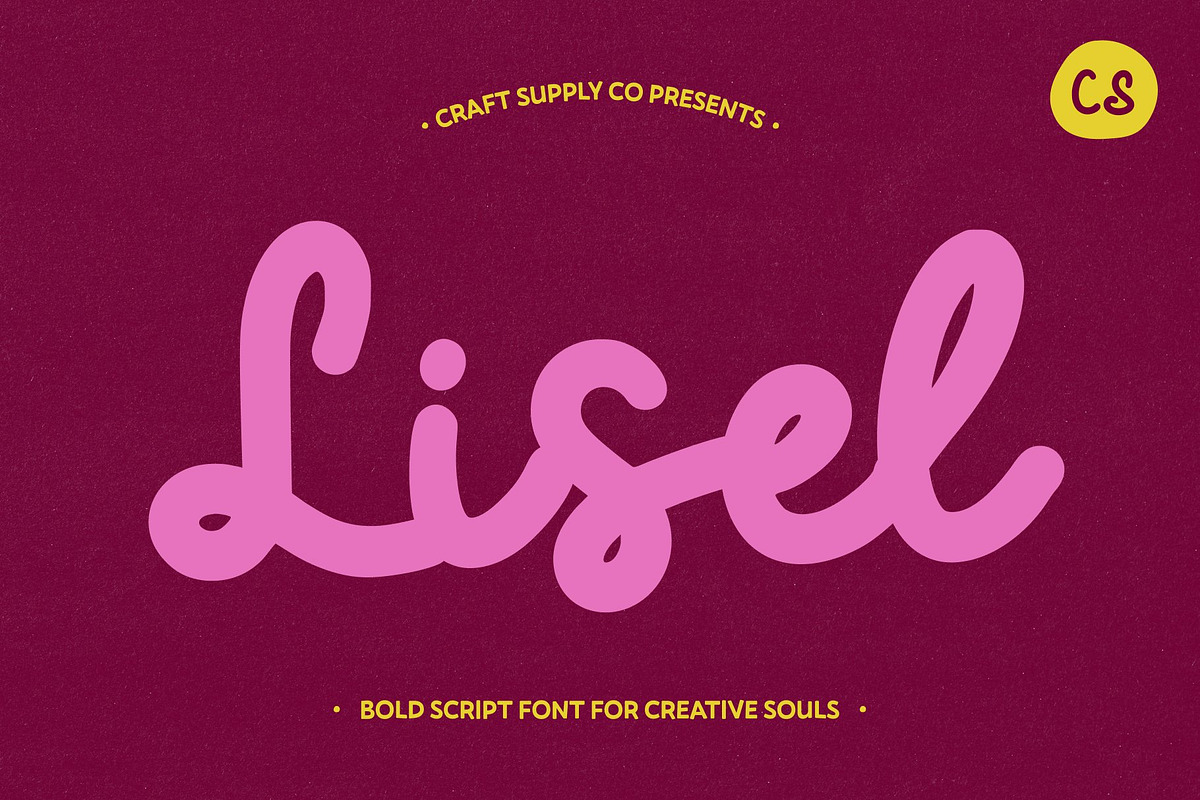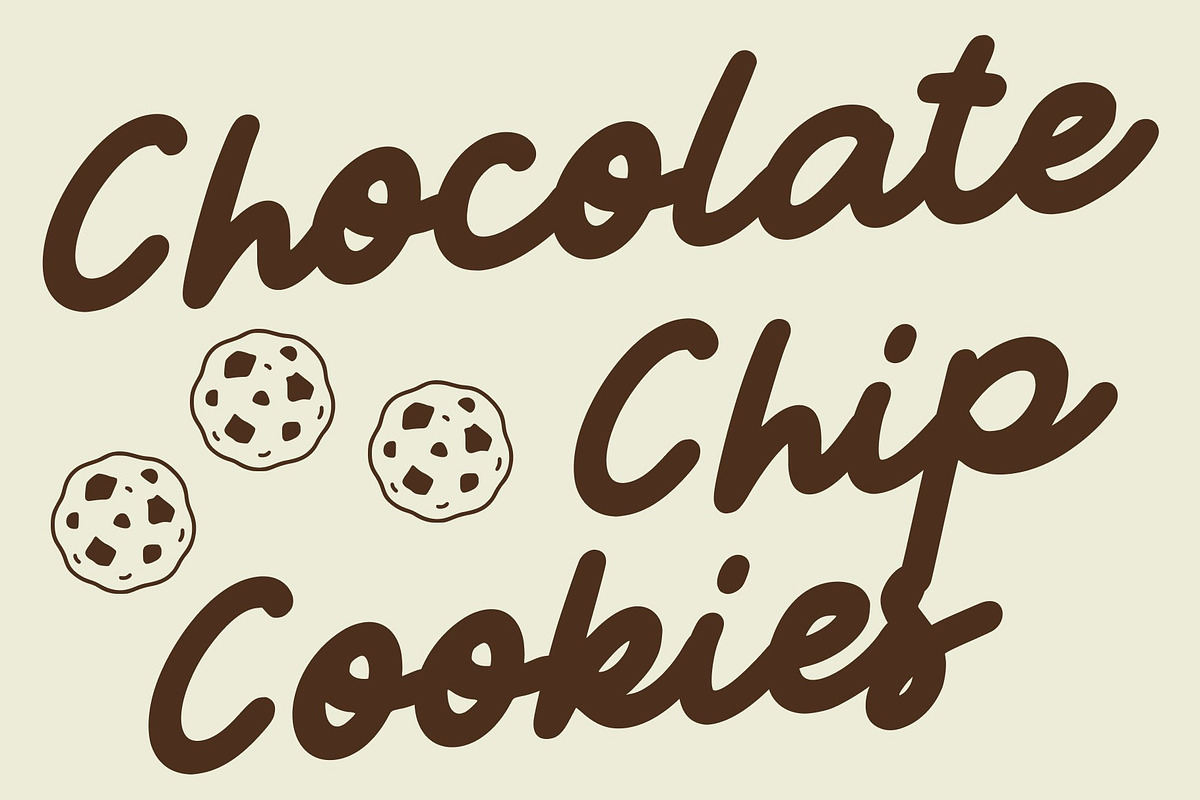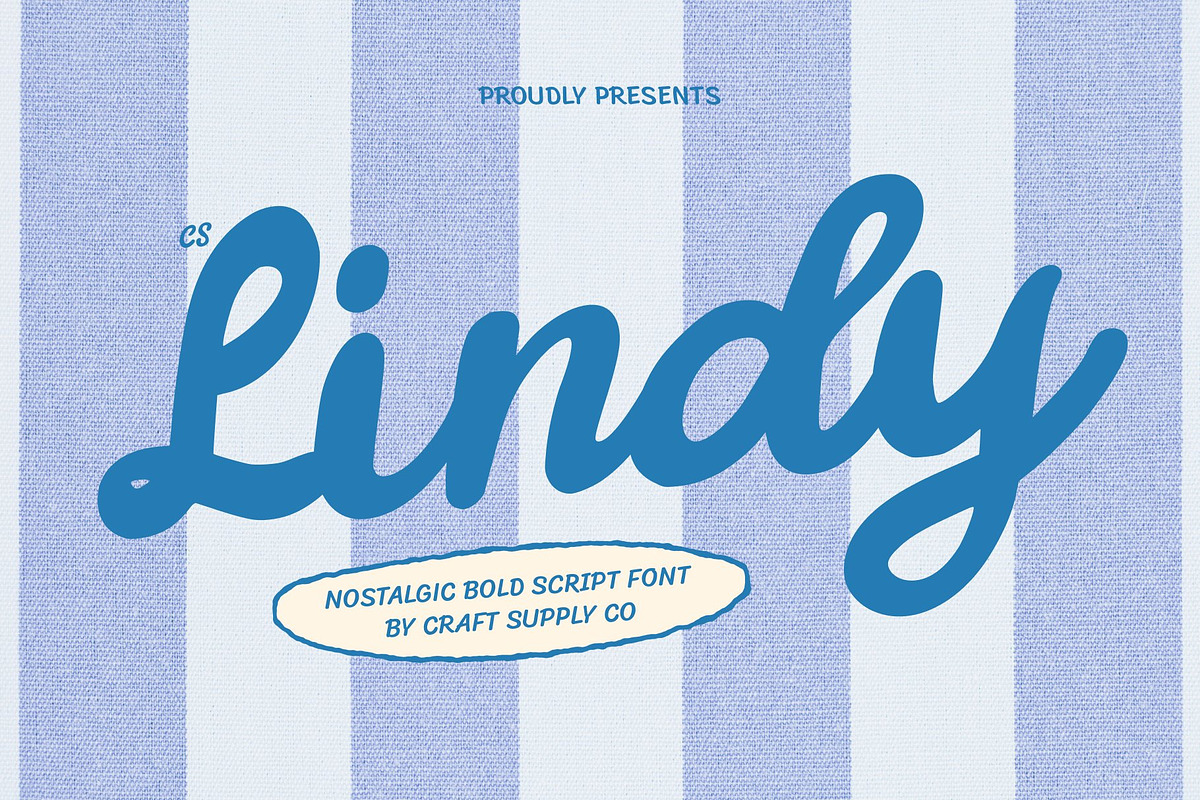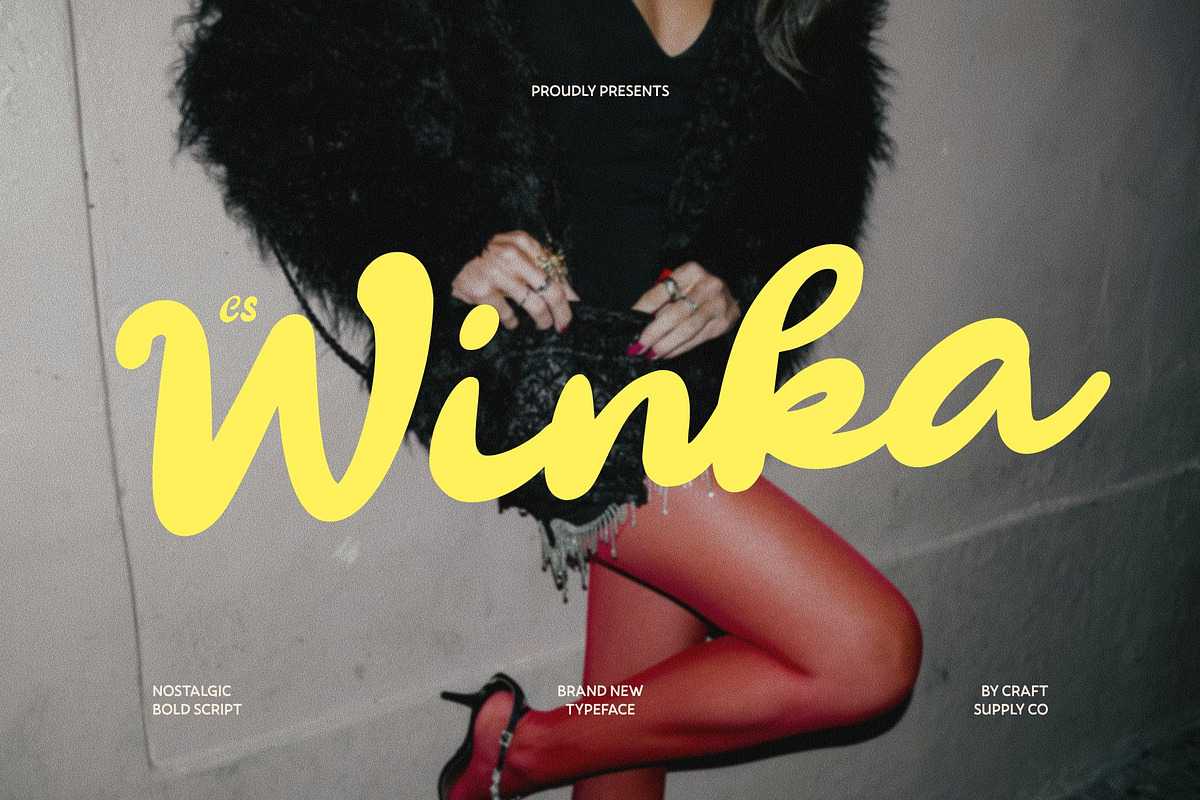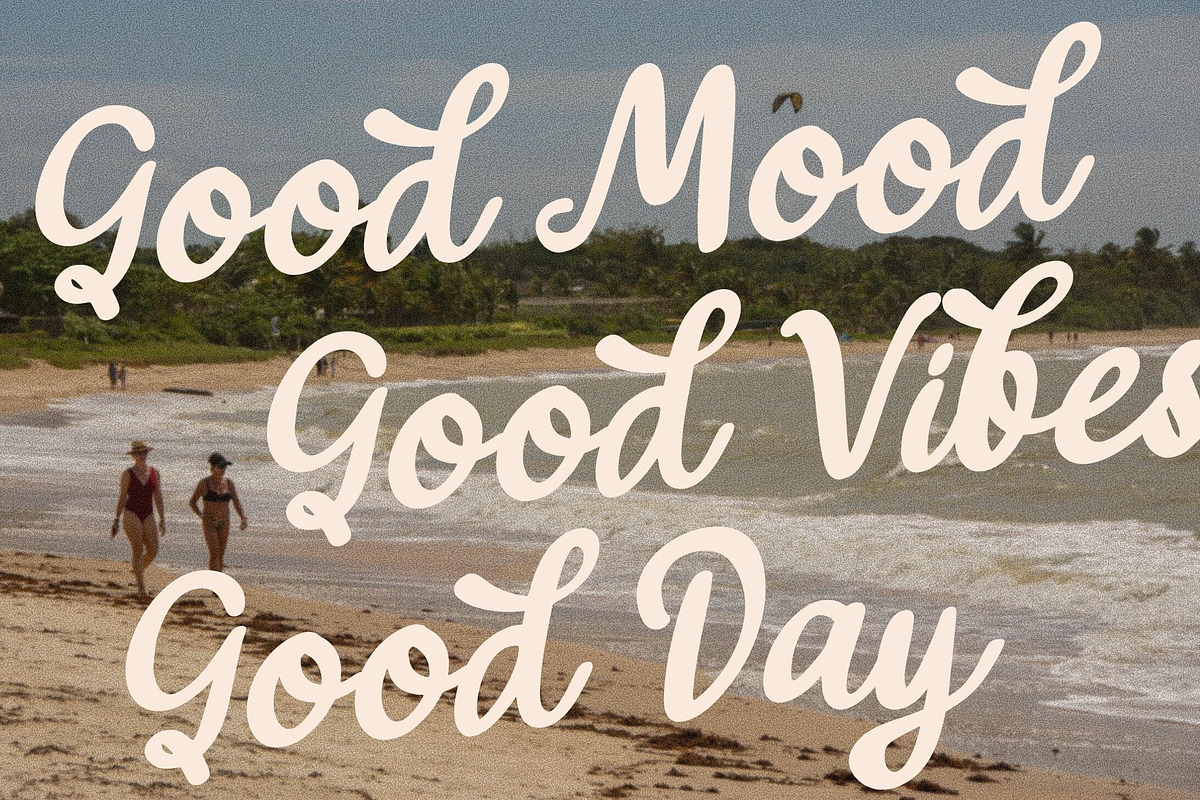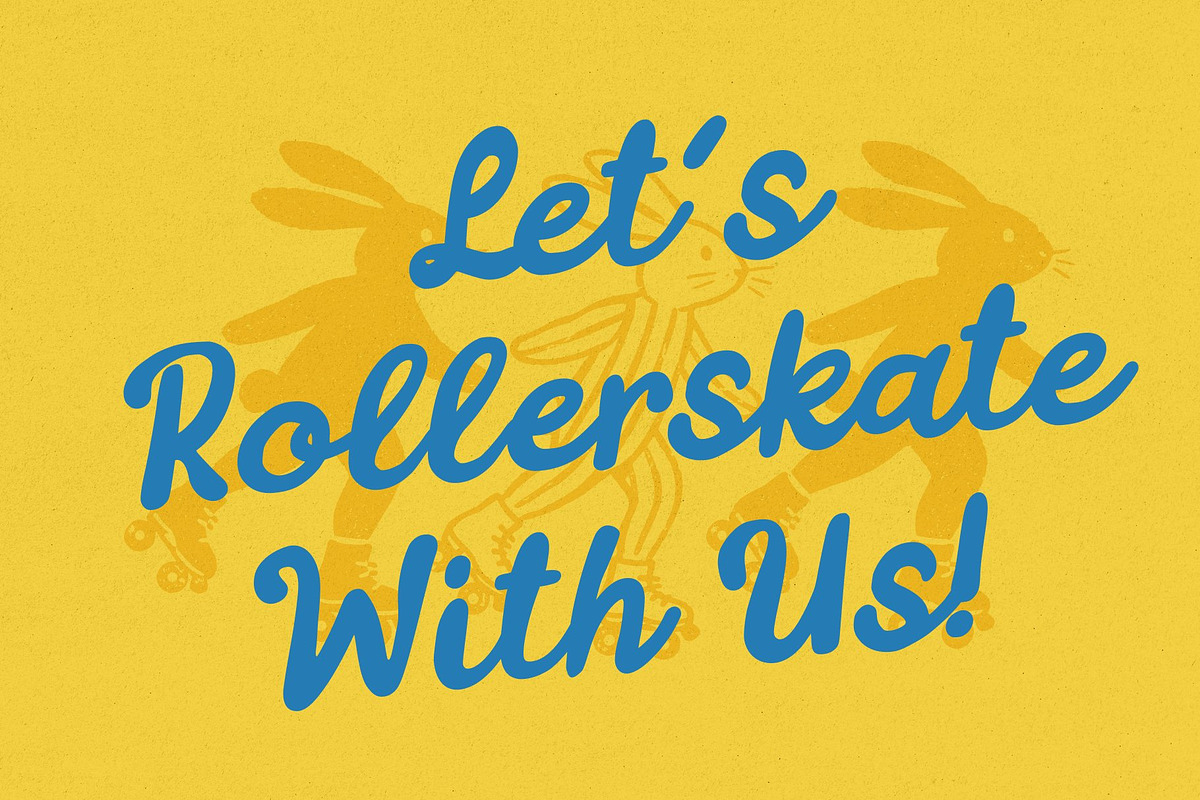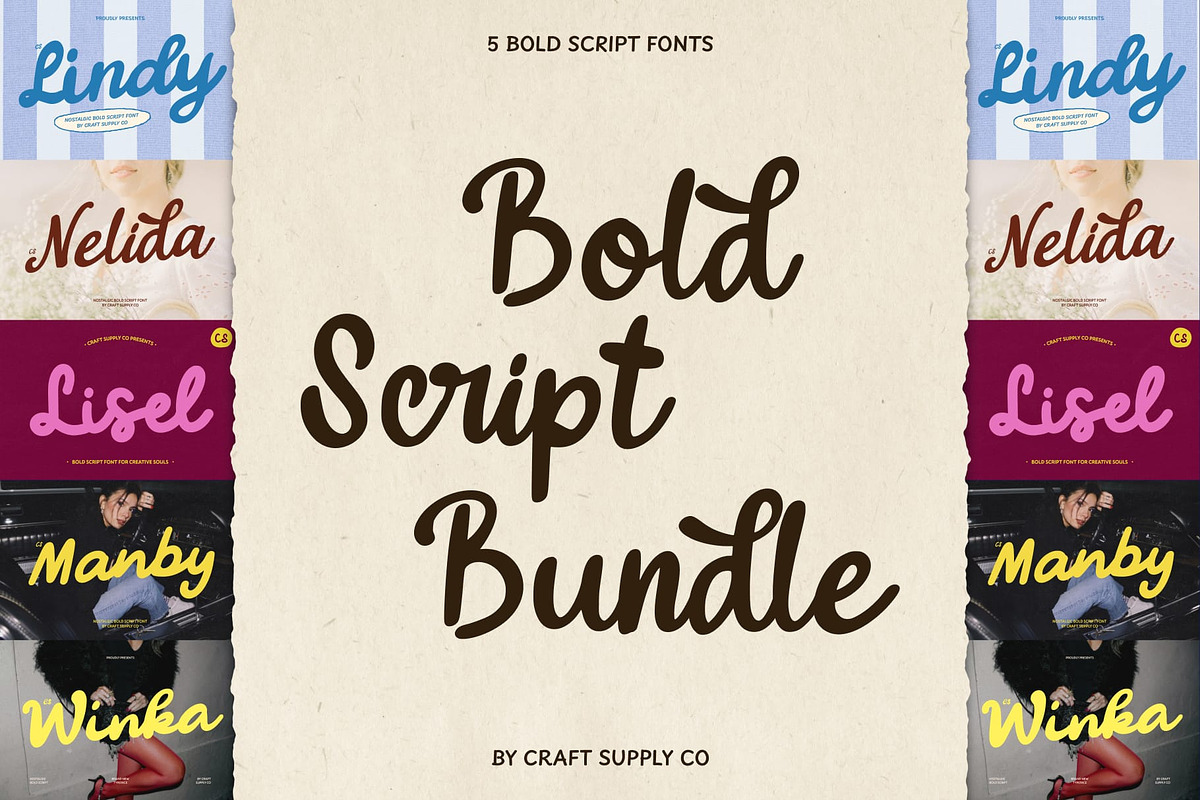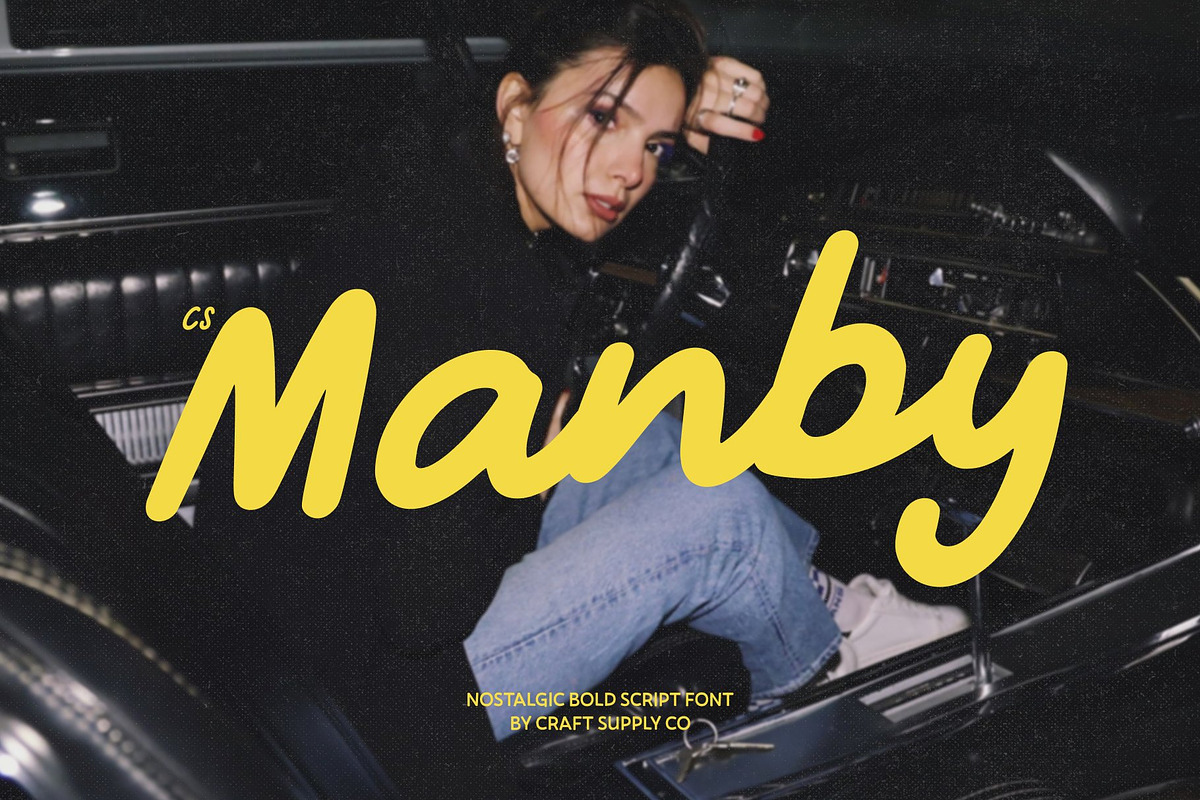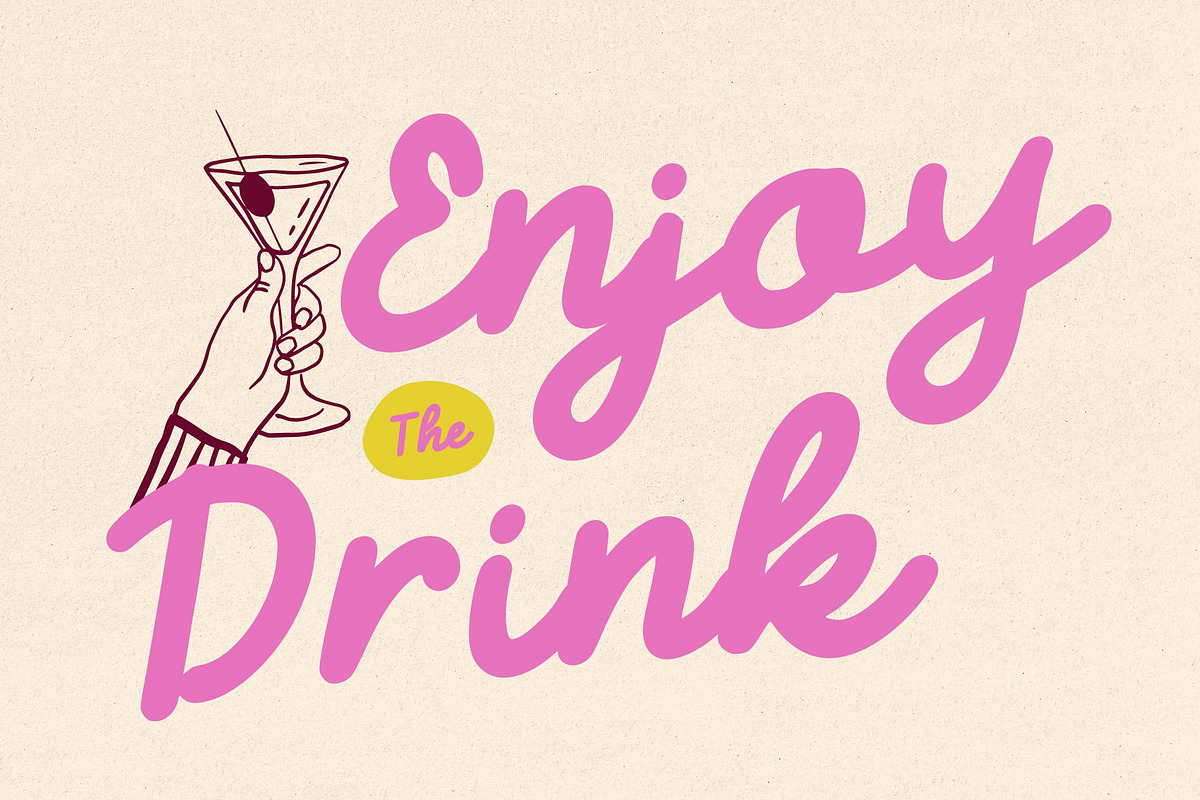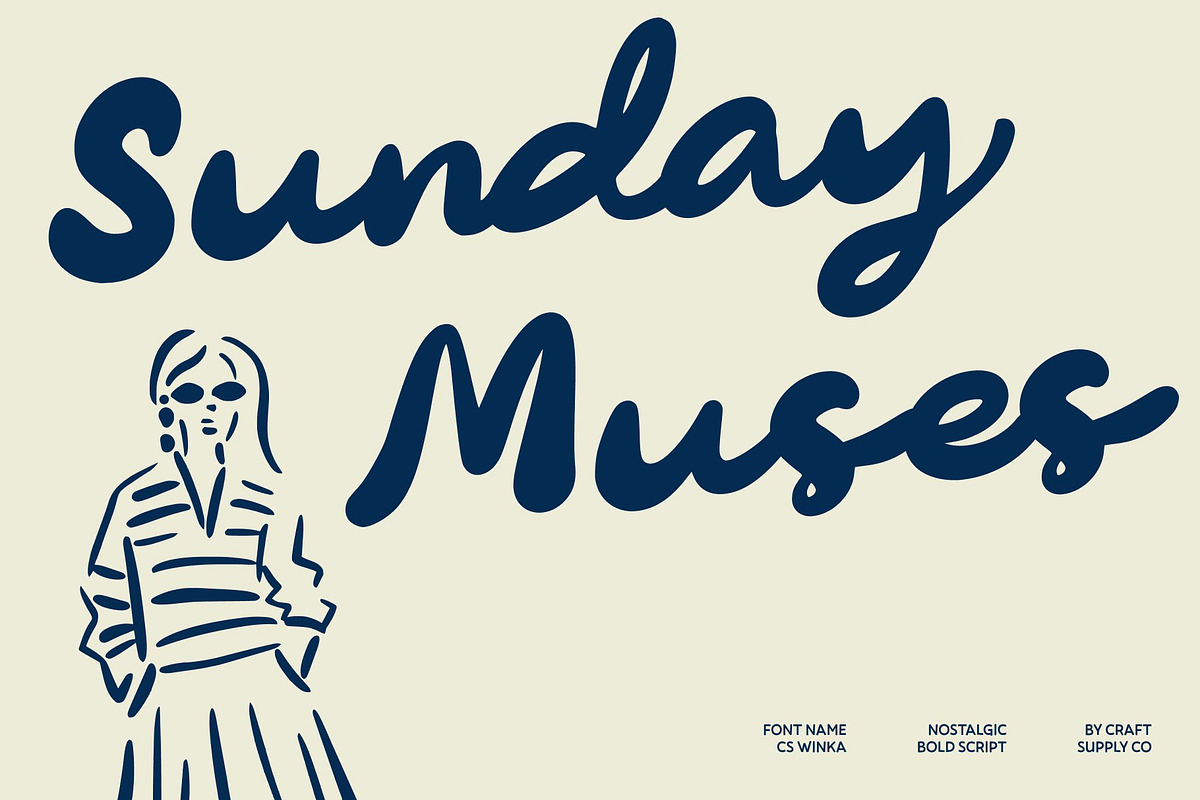
Nostalgic Bold Script Bundle
Elevate your design projects with the Nostalgic Bold Script Bundle, a comprehensive collection crafted for those who demand visual impact and versatility. This curated set features 15 unique fonts, offering a diverse range of weights and styles that blend timeless elegance with modern boldness.
Each typeface within the Nostalgic Bold Script Bundle is built for complete functionality. The set includes a full range of uppercase and lowercase characters, numerals, punctuation, and symbols, ensuring seamless integration across complex layouts without the need for supplementary glyphs.
These scripts are ideal for high-conversion commercial applications. Use them to create sophisticated branding materials, eye-catching social media graphics, or luxury packaging that requires a hand-drawn feel. Whether you are designing a boutique logo or a bold editorial headline, these fonts provide the necessary weight to command attention.
15 unique fonts
Includes uppercase, lowercase, numerals, punctuation, and symbols
CS Lindy
CS Lisel
CS Manby
CS Nelida
CS Winka